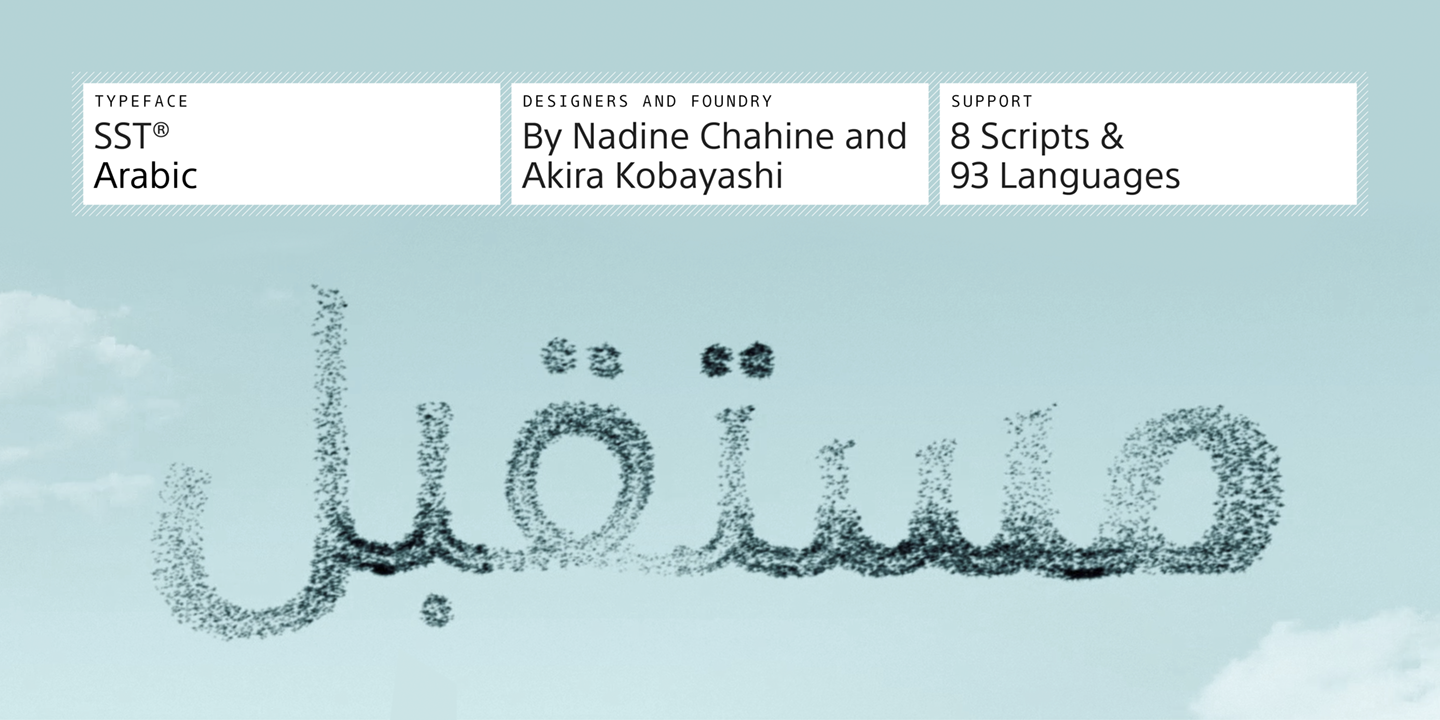
SST Arabic Font is perfect for bilingual brand identity, Middle Eastern corporate communications, Arabic-English publications, international business materials, multicultural marketing campaigns, global website design, Arabic-Latin typography systems, cross-cultural educational content, diplomatic documentation, and multinational corporate branding.
What makes SST Arabic Font so exciting is its seamless bilingual harmony that bridges Arabic and Latin typography with exceptional cultural sensitivity and technical precision. This typeface features carefully crafted Arabic letterforms that complement Latin characters perfectly, maintaining authentic Arabic calligraphic traditions while ensuring optimal readability across both writing systems. The font's culturally respectful and technically sophisticated character communicates global inclusivity and professional excellence, making it perfect for organizations seeking to establish authentic connections with Arabic-speaking audiences while maintaining international design consistency.
SST Arabic Font family includes comprehensive weight range from Light to Bold, along with corresponding styles that maintain visual harmony between Arabic and Latin scripts. The family also features special character sets including Arabic numerals, diacritical marks, and cultural symbols that enhance the font's authenticity for Arabic language applications and cross-cultural communication projects.
SST Arabic Font supports comprehensive character sets including complete Arabic alphabet, Latin characters, Arabic-Indic numerals, and extensive diacritical marks. The font's culturally sensitive spacing ensures proper Arabic text flow while maintaining visual consistency with Latin typography. Its OpenType features include contextual alternates, Arabic ligatures, and bilingual typography options that enhance functionality for complex multicultural design projects.
Professional designers and international organizations choose SST Arabic Font for projects requiring authentic Arabic typography and cross-cultural design excellence. The font excels in applications where cultural sensitivity and bilingual communication are essential, offering the perfect solution for brands seeking to communicate authentically with Arabic-speaking markets while maintaining global design standards. Its bilingual character makes it ideal for international corporations, diplomatic institutions, and culturally-focused organizations.